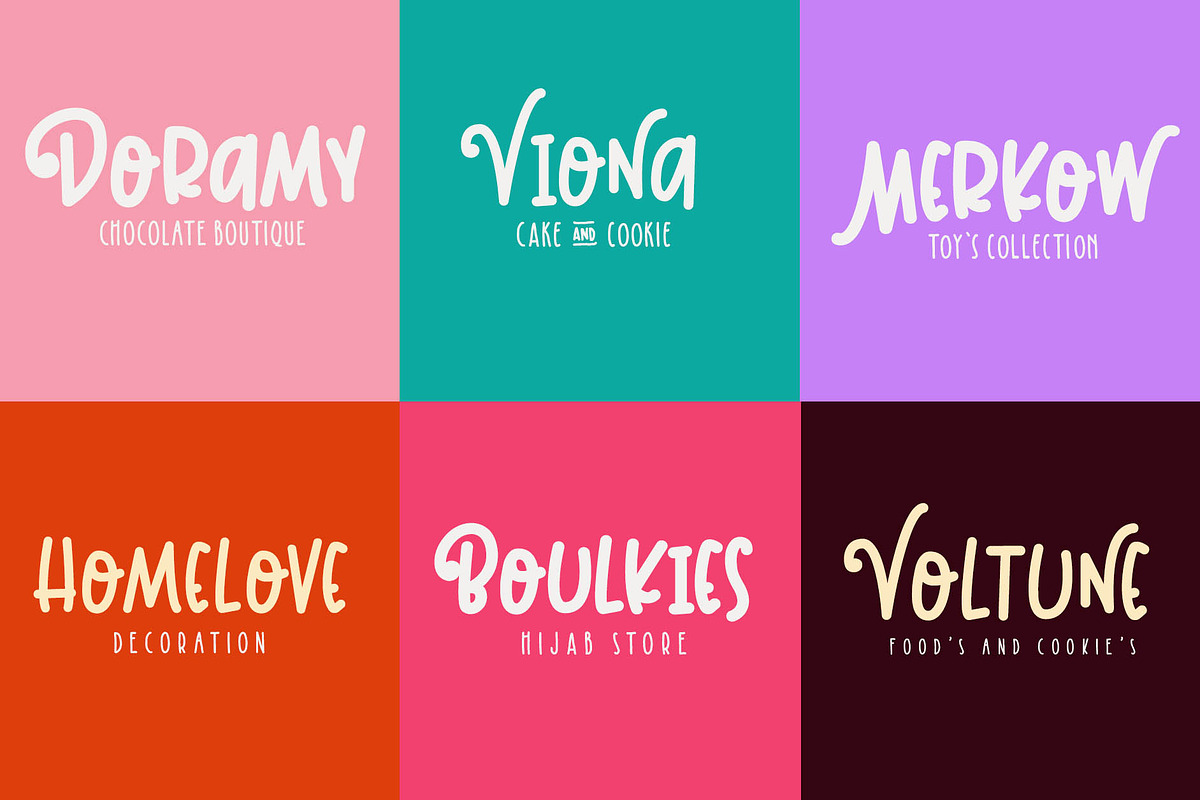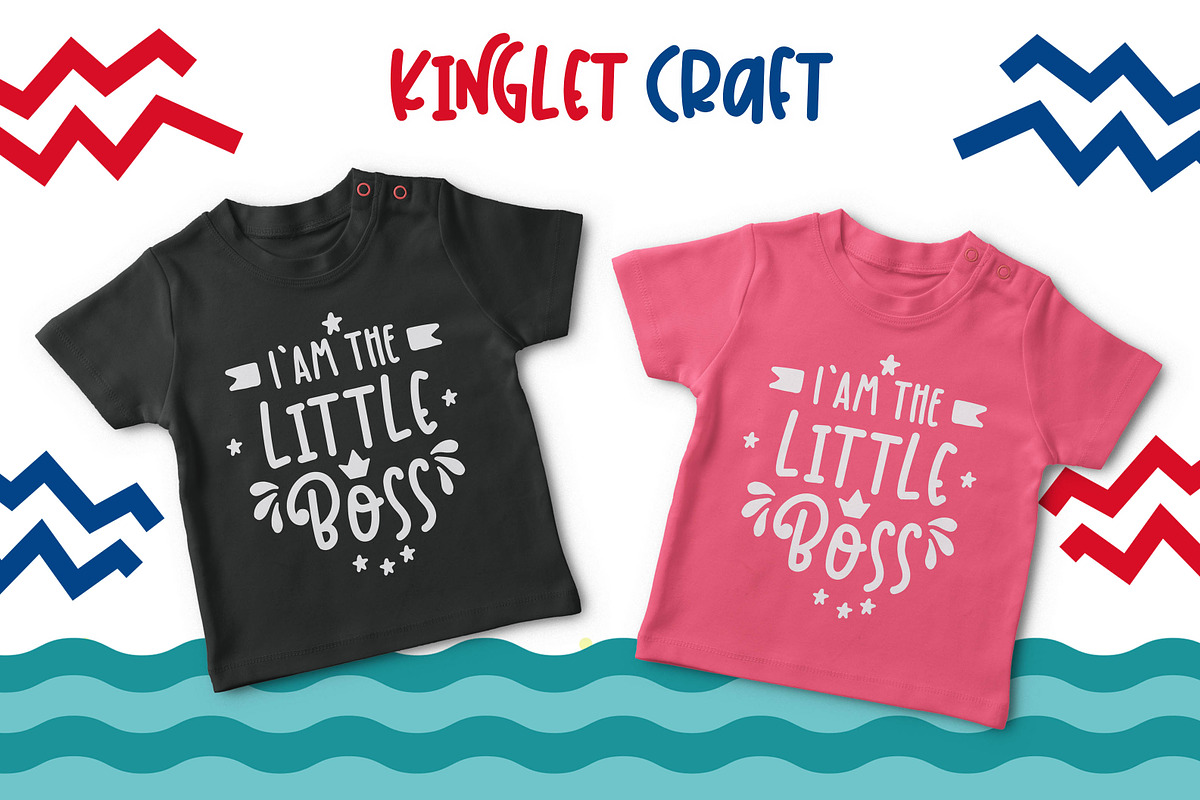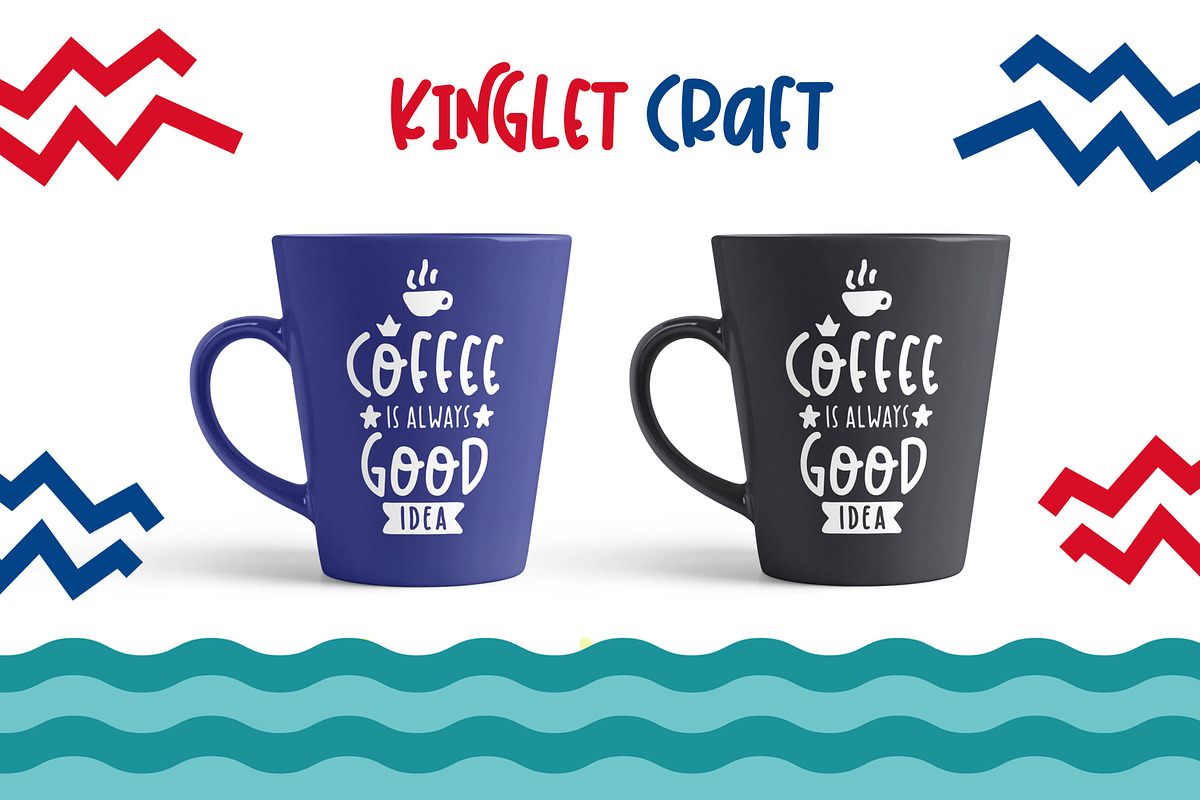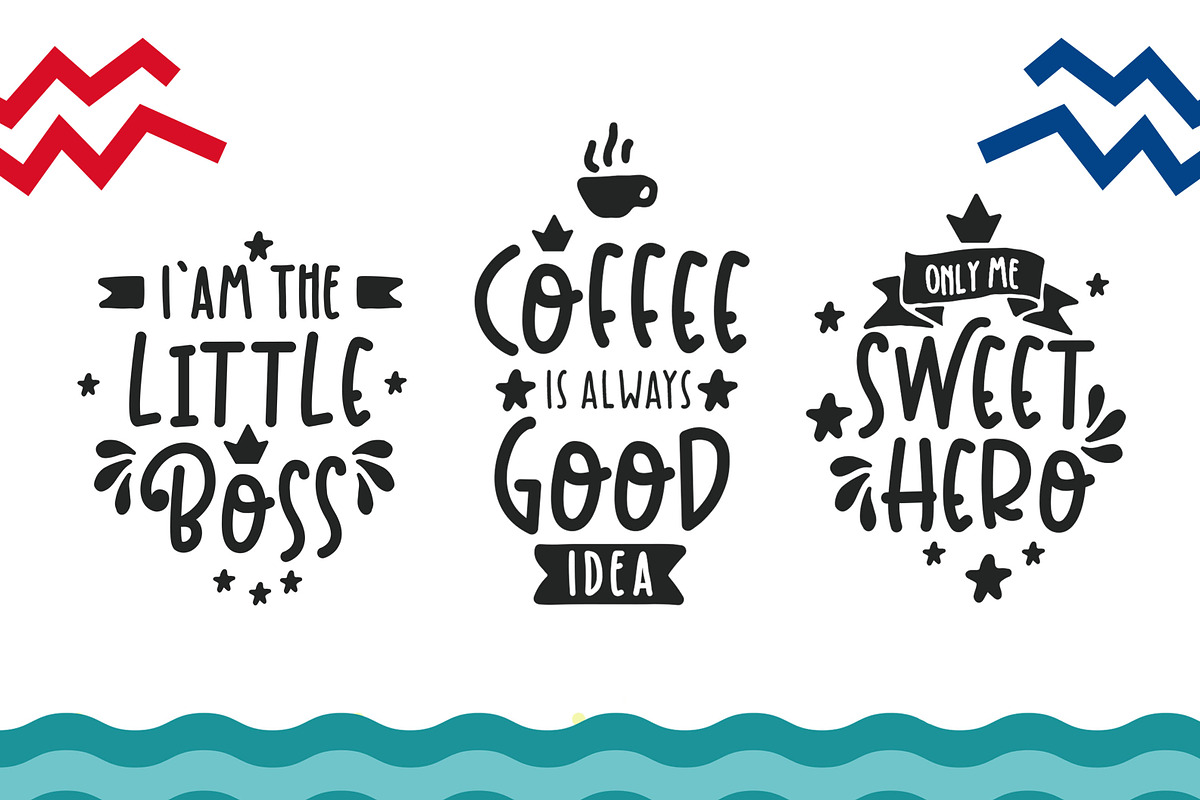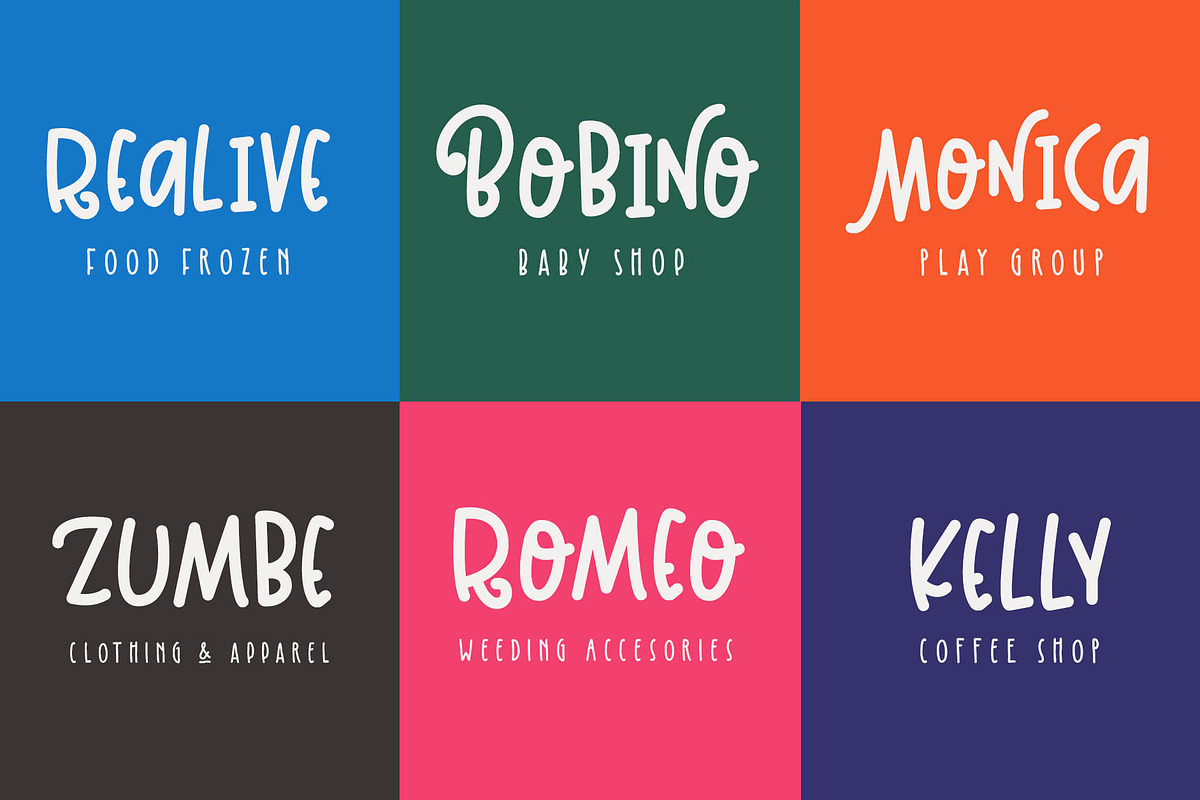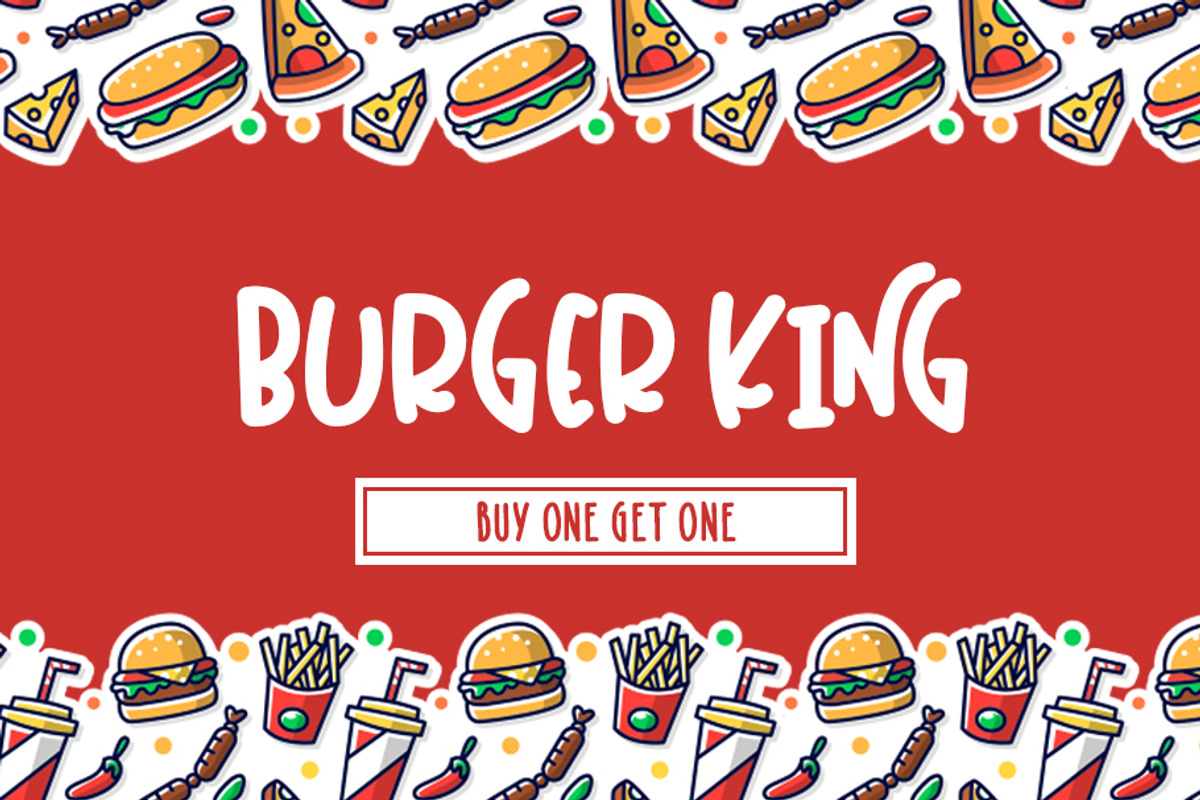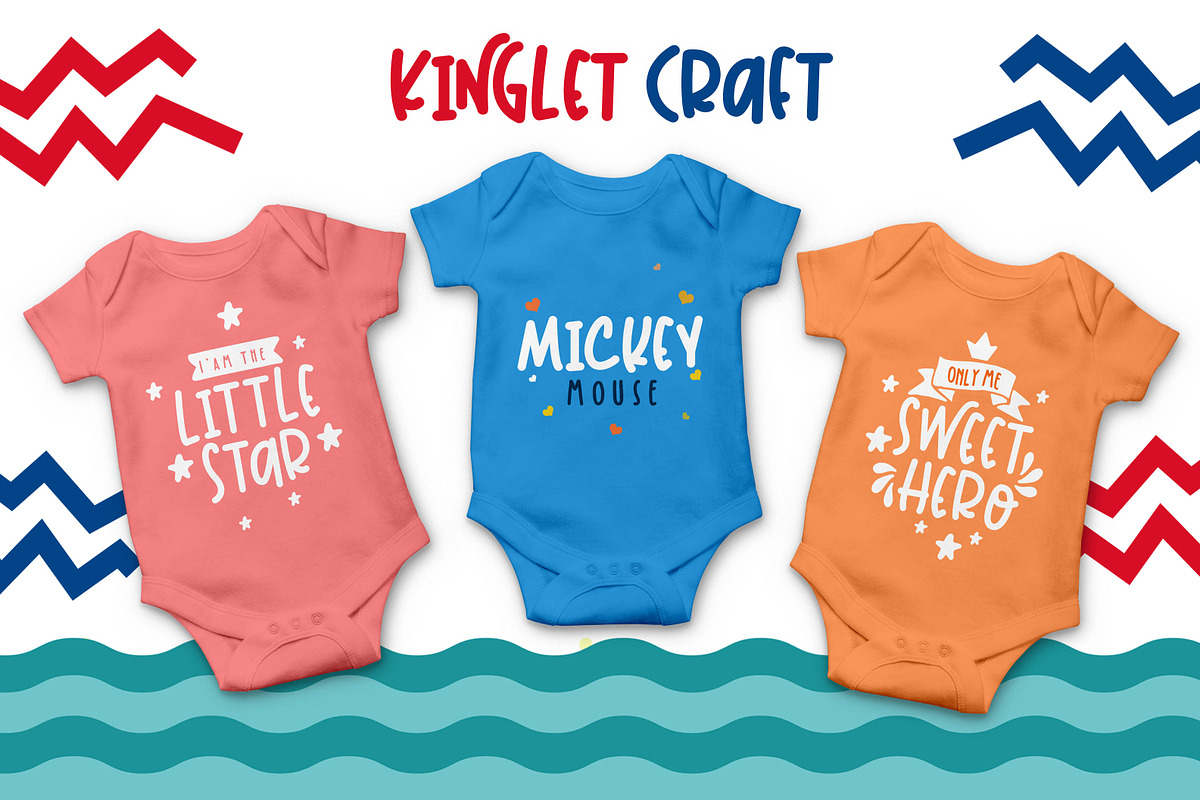
Kinglet - Cute Font Duo
Say Hello ... to Newcomers Kinglet/ Cute Font Duo With Extras
hi introduce two cute and playful fonts made with handwriting that can meet your design needs with funny and cheerful themes You can use it in your various designs, clothes, logos, posters, invitations, crafts, and more